Fancy Letter E Font
Every fancy font style rendered for just the letter E, so you can compare them side by side before picking one for an initial, a logo, or a single-character tag.
The Letter E in Every Style
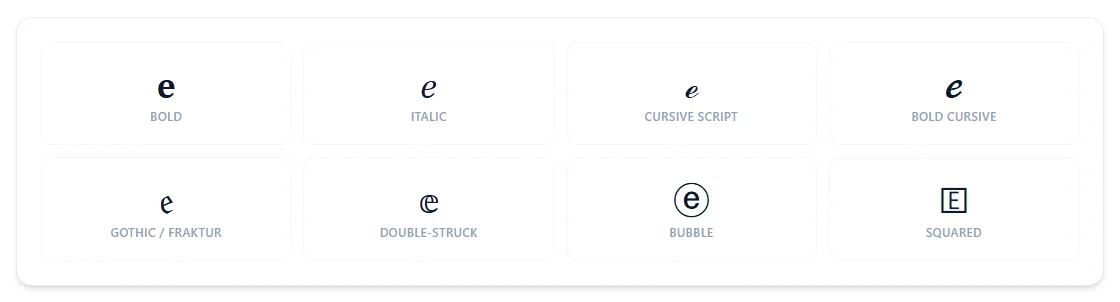
E's script form (ℰ) is another borrowed character rather than a purpose-built glyph — it's the same symbol used in physics for electric field, reused here because Unicode's Mathematical Alphanumeric block never assigned E its own script capital.
Why does script E look slightly different from the rest of the alphabet?
It reuses ℰ, an older Unicode character, instead of a dedicated script glyph — E is one of several capitals that work this way in the script style.